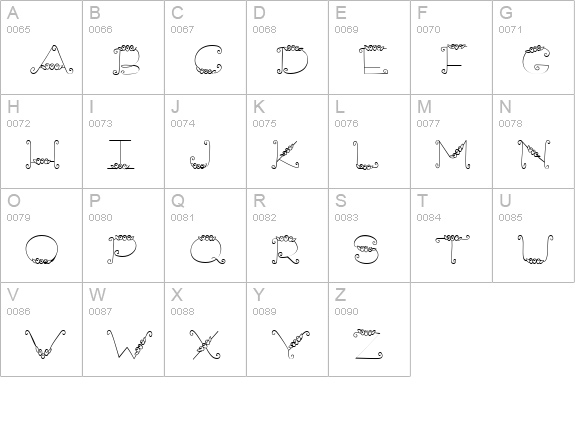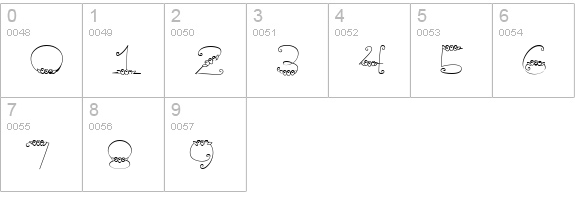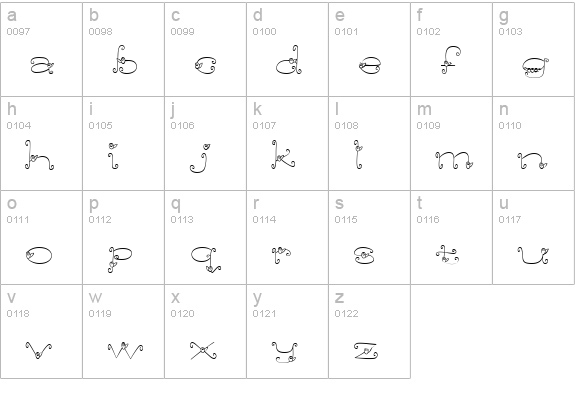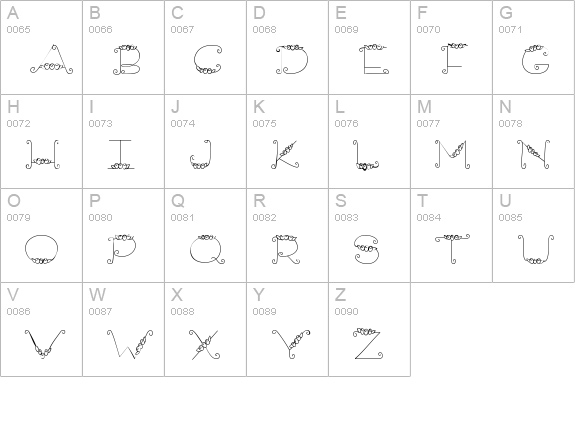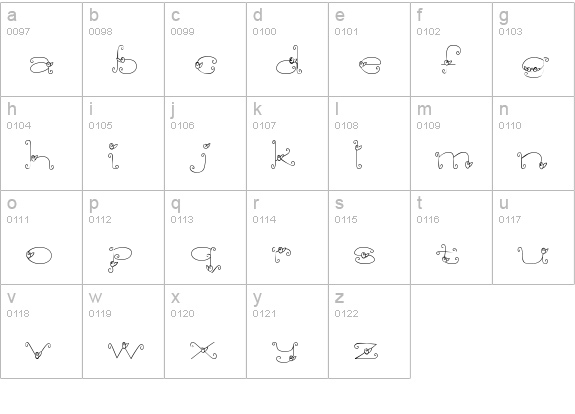
CK Roses Font Details
Introducing CK Roses font - a whimsical and elegant typeface perfect for adding a touch of sophistication to your design projects. This beautiful font features intricate rose motifs intertwined with delicate letterforms, creating a stunning visual impact. The CK Roses font is versatile and can be used for various design purposes such as invitations, branding, packaging, and more. The best part is that CK Roses font is completely free to download at FontsMarket.com. Simply visit the website and start using this gorgeous font in your projects today. Don't miss out on this amazing opportunity to add a touch of romance and charm to your designs with the CK Roses font. Download now and let your creativity blossom!